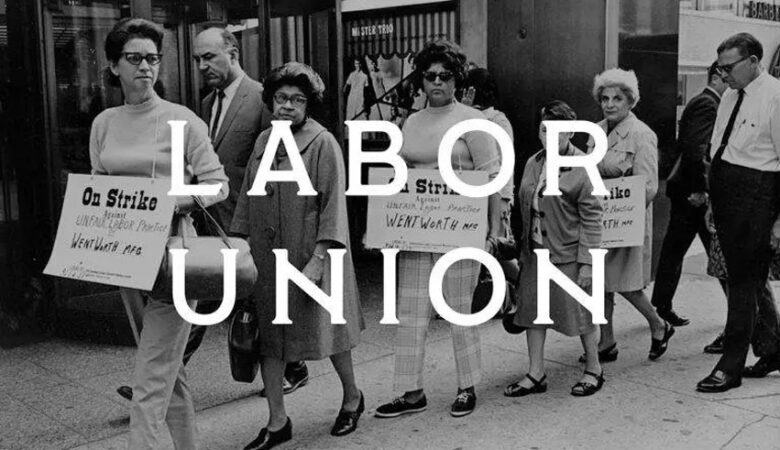
Yaron Sokac Font is a fun and friendly display font.
Whether you are using it for cartoon-related designs, children’s games, quotes, titles, brand names, book covers, posters, or just any creation that requires a touch of joy, this font is a great choice.